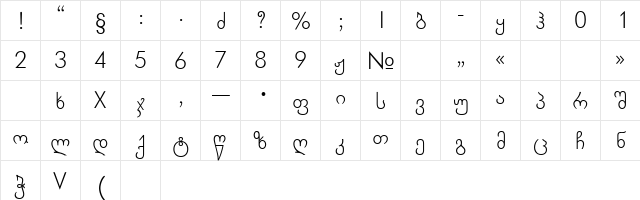
Chveulebrivy Regular
Design Context for Chveulebrivy Typeface
Chveulebrivy offers clean, dependable letterforms without strong stylistic allegiance, making it a practical choice for designers who need flexibility.